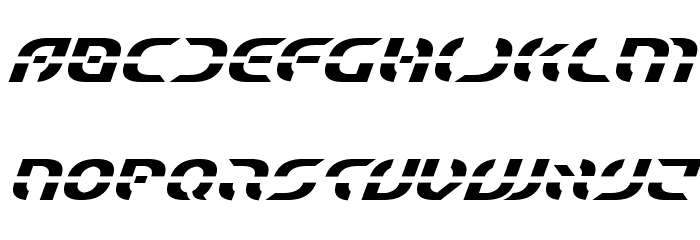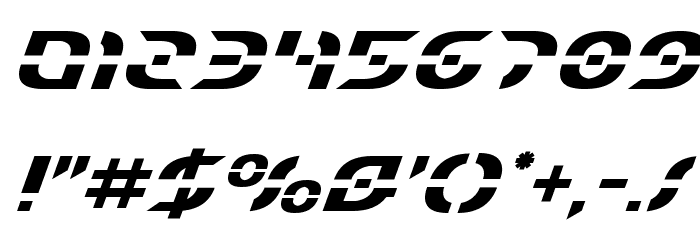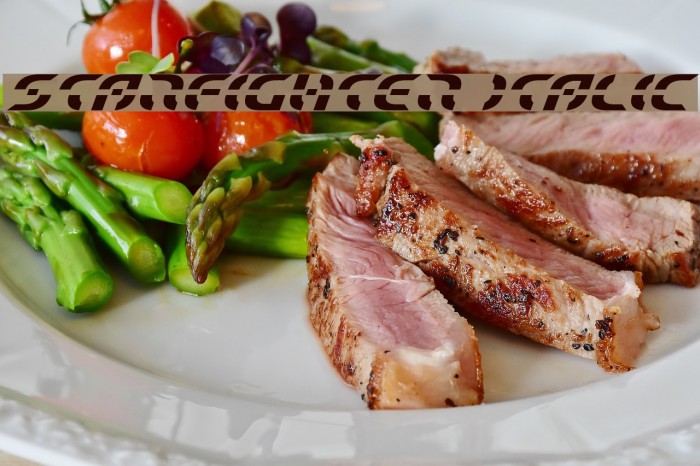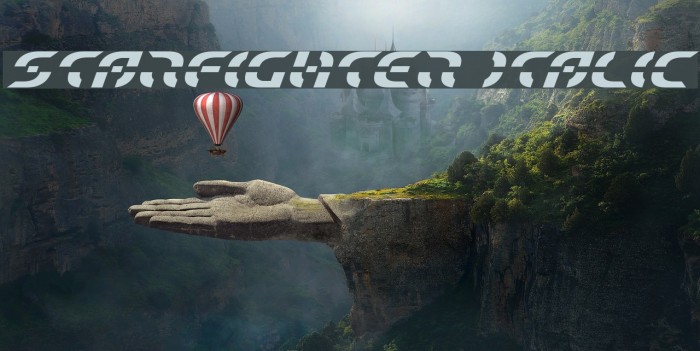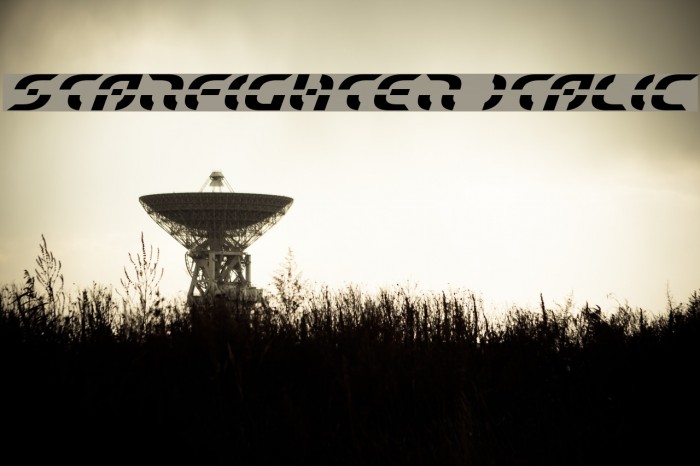
Starfighter Italic Font
This font features a futuristic and dynamic design, characterized by its bold, italicized letters with sharp angles and unique cutouts. The characters are designed with a sense of motion, making them appear as if they are moving forward. The uppercase and lowercase letters maintain a consistent style, with a strong emphasis on geometric shapes and a sleek, modern aesthetic. The numbers and special characters follow the same design principles, ensuring a cohesive look across all elements. This font's distinct style makes it ideal for projects that require a modern, tech-inspired feel.
A bold, italicized font with a futuristic, dynamic design and geometric shapes.
- Proposed Projects: Ideal for sci-fi themed designs, tech branding, video game titles, and futuristic posters.
- Overall Style: Futuristic